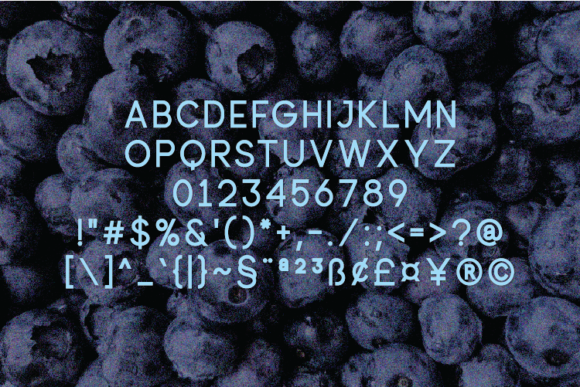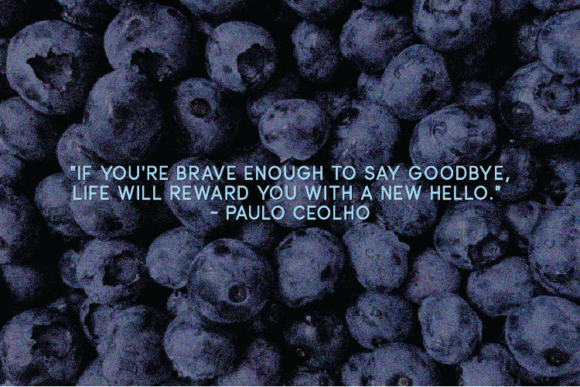
Discover the Perfect Blend of Style and Versatility
You’re staring at a blank canvas, a blank page, or a blank screen, and the creative juices are flowing. The ideas are pouring in, but one thing is holding you back – the perfect font. You want something that will elevate your design, something that will make it pop. That’s where the Berryblue Font comes in – a casual and adaptable lettered sans serif font designed to complement every project you’re working on.
Whether you’re creating beautiful headings, gorgeous invitations, stunning logos, or anything in between, the Berryblue Font is the perfect addition to your design toolkit. Its versatility makes it valuable for designers of all levels, from beginners to seasoned pros. With the Berryblue Font, you can rest assured that your designs will stand out, and your message will shine through.
Berryblue Font Key Features
- Unique Characteristics: Berryblue Font features a unique blend of rounded and geometric shapes, giving it a friendly and approachable feel.
- Font Weight: Berryblue Font is available in light, regular, bold, and italic weights, providing flexibility for designers to create various visual effects.
Berryblue Font Review
I recently had the chance to work with the Berryblue Font, and I must say it’s a unique addition to any design project. ✨ One thing that stands out is its playful, hand-drawn feel, which instantly adds a touch of whimsy to any text. The font’s rounded edges and organic shapes make it perfect for branding and marketing materials, especially those targeting a younger audience.
Another advantage of Berryblue Font is its versatility. It comes in a range of weights and styles, allowing you to easily switch between bold and light versions to convey different emotions or emphasis. This flexibility makes it an excellent choice for designers who want to create visually appealing and consistent designs.
- Playful, hand-drawn feel
- Versatility in weights and styles
- Perfect for branding and marketing materials
- May not be suitable for formal or professional settings
- Can be overwhelming if used excessively
- Limited international character support
Overall, I think Berryblue Font is a great addition to any designer’s toolkit. While it may not be perfect for every project, its unique charm and versatility make it a great choice for designers looking to add some personality to their designs.
Berryblue Font: A Practical Application Guide
For a more polished look, use Berryblue font for headings and a clean sans-serif font for body text.
For a professional look, use Berryblue font in conjunction with other high-end fonts.
Use Berryblue font for headings and a clean sans-serif font for body text for a clear and concise presentation.
Berryblue font is ideal for creative projects, such as branding, packaging, and advertising. It’s also great for titles, headings, and other text elements where a playful and modern touch is needed.
- Technology and software branding
- Marketing and advertising materials
- Wedding and event invitations
Lato is a sans-serif font designed by Łukasz Dziedzic. It’s a clean and modern font suitable for body text, headings, and titles. Lato is a great alternative to Berryblue Font when you need a simple and elegant font for your design.
Comparison: Lato is more straightforward and minimalist compared to Berryblue Font, which has a more playful and whimsical feel. Lato is ideal for projects that require a neutral and professional tone.
Montserrat is a sans-serif font designed by Julieta Ulanovsky. It’s a geometric font inspired by urban typography, perfect for titles, headings, and body text. Montserrat is a great alternative to Berryblue Font when you need a strong and modern font for your design.